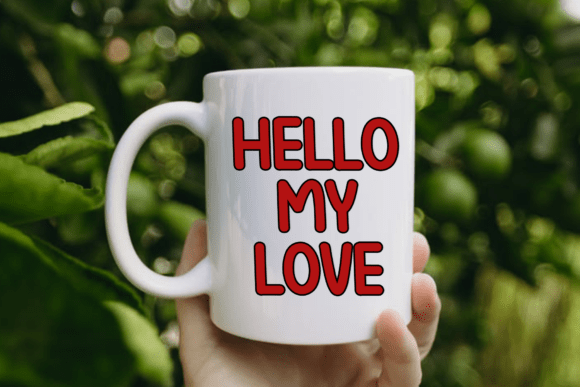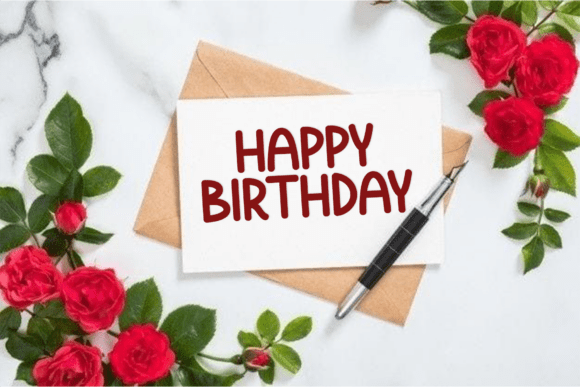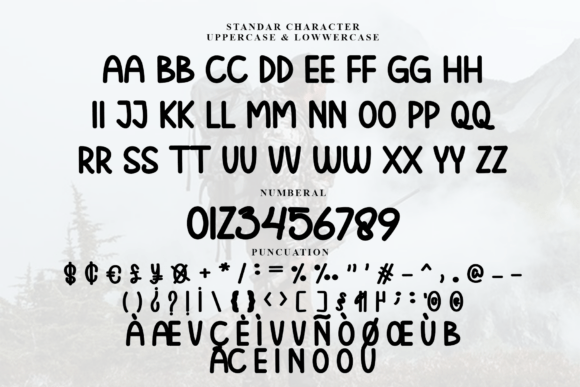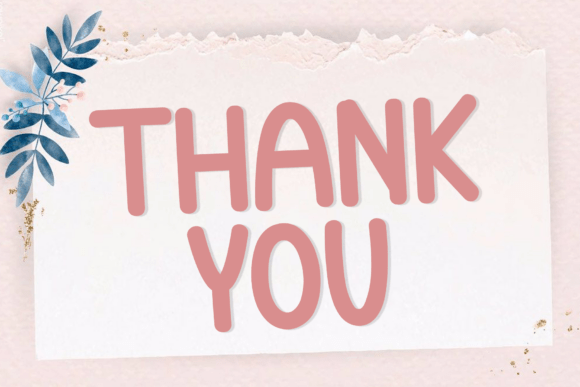
Discover the Fresh Breath of Spring with April Hunky Font
Have you ever found yourself stuck in a design rut, searching for the perfect font to bring your project to life? We’ve all been there. Sometimes, it’s the simplest moments that spark our creativity. Like a crisp morning walk through the mountains, the air filled with the sweet scent of blooming wildflowers. This is the kind of clarity and elegance that April Hunky Font embodies.
Designed to evoke a sense of refined sophistication, April Hunky Font is a unique addition to the modern handwritten collection. Its clean and approachable style makes it an ideal choice for travel photography, outdoor gear branding, and sophisticated web design. Whether you’re a seasoned designer or just starting out, April Hunky Font is a valuable asset to have in your toolkit.
April Hunky Font Key Features
- Unique Characteristics: April Hunky Font features a unique blend of modern and vintage elements, with bold lines, rounded edges, and elegant letterforms that give it a distinctive look.
- Font Style: This font is available in a range of styles, including Regular, Bold, Italic, and Bold Italic, offering flexibility for various design applications.
- Language Support: April Hunky Font supports multiple languages, including Latin, Cyrillic, and Greek alphabets, making it suitable for international designs and publications.
- Scalability: The font is designed to be highly scalable, allowing it to adapt to various screen resolutions and print sizes without losing its clarity or integrity.
April Hunky Font Review
At first glance, April Hunky Font seems like a promising addition to any design project. ✨ Its unique blend of playful and elegant characteristics makes it perfect for capturing the essence of spring or summer themes.
- One of the standout features of April Hunky Font is its versatility. ✨ It can be used for a wide range of applications, from headings and titles to body text and captions.
- Another advantage of April Hunky Font is its high level of customization. ✨ Users can easily adjust font sizes, colors, and styles to fit their specific design needs.
- The font also features a range of ligatures and swashes, adding an extra touch of sophistication and elegance. ✨
However, there are a few limitations to consider. ⚠️ The font may not be as effective for formal or professional projects, as its playful nature can come across as immature or unpolished.
Overall, I’d say April Hunky Font is a solid choice for designers looking to add a touch of whimsy and personality to their projects. While it may not be the best fit for every situation, it’s definitely worth considering for its unique charm and versatility.
For optimal results, use April Hunky Font in bold or italic styles to add emphasis to your text. You can also pair it with other fonts to create a unique and eye-catching design.
April Hunky Font is ideal for use in creative and artistic projects, such as:
- Poster design
- Social media graphics
- Infographics
- Wedding invitations
Alternatives to April Hunky Font
Playfair Display is an elegant, high-end serif font ideal for creating luxurious and sophisticated designs. It features intricate details and ornate flourishes, making it perfect for use in titles, headings, and other prominent text elements. When to use: high-end branding, luxury products, and elegant invitations.
Comparison to April Hunky Font: While April Hunky Font has a playful, casual feel, Playfair Display is more formal and refined. If you want to convey a sense of sophistication and luxury, choose Playfair Display.